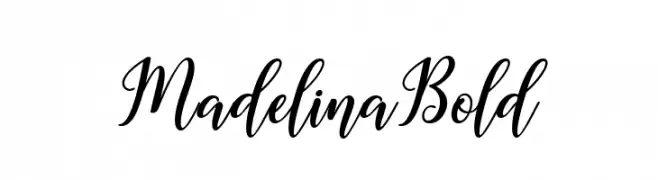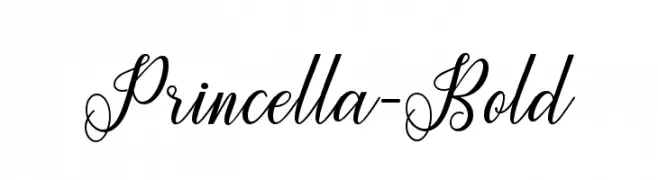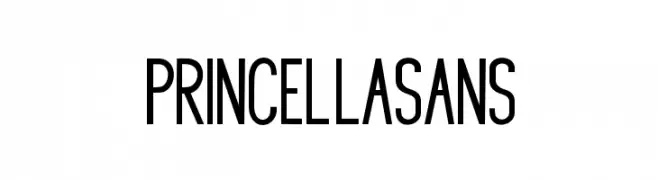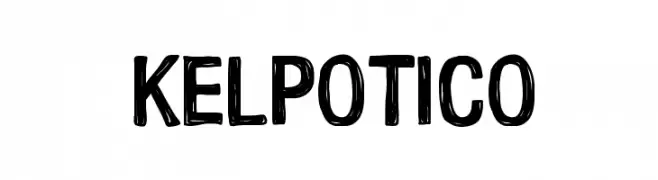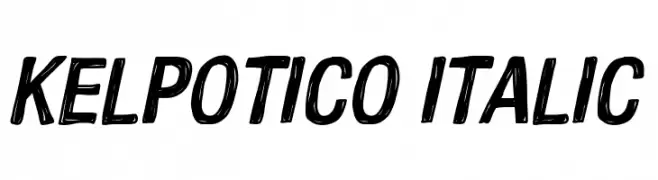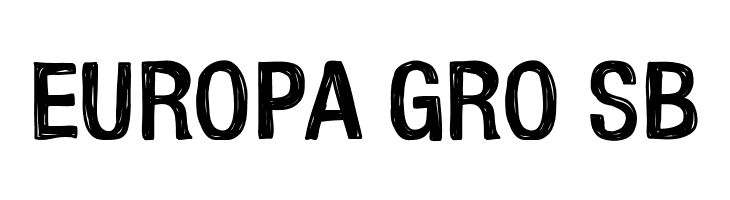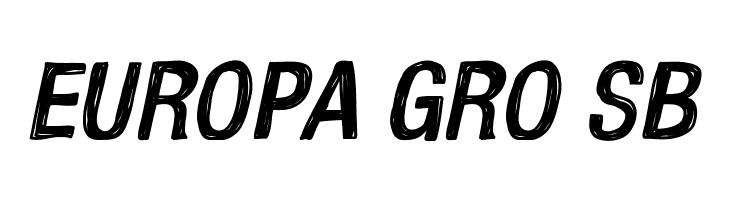
( Amar Lettering - creativemarket.com/Amarlettering )
An elegant script font with flowing lines and sophisticated style.
( Amar Lettering - creativemarket.com/Amarlettering )
An elegant, flowing script font with smooth, cursive letterforms.
( Amar Lettering - creativemarket.com/Amarlettering )
An elegant, flowing script font with interconnected letters and delicate flourishes.
( Amar Lettering - creativemarket.com/Amarlettering )
An elegant script font with ornate, flowing characters and intricate flourishes.
( Amar Lettering - creativemarket.com/Amarlettering )
A modern, tall, and narrow sans-serif font with a clean and professional look.
( Amar Lettering - creativemarket.com/Amarlettering )
A flowing, cursive font with elegant loops and a handwritten style.
( Amar Lettering - creativemarket.com/Amarlettering )
A graceful script font with fluid, cursive strokes and elegant curves.
( Carrot Rope - typewhatyouloveandletitkillyou.tumblr.com/ )
A playful, hand-drawn font with bold, irregular strokes and a casual feel.
( Carrot Rope - typewhatyouloveandletitkillyou.tumblr.com/ )
A bold, hand-drawn font with a playful and informal style.
( Carrot Rope - typewhatyouloveandletitkillyou.tumblr.com/ )
A bold, italicized font with a hand-drawn, energetic style.